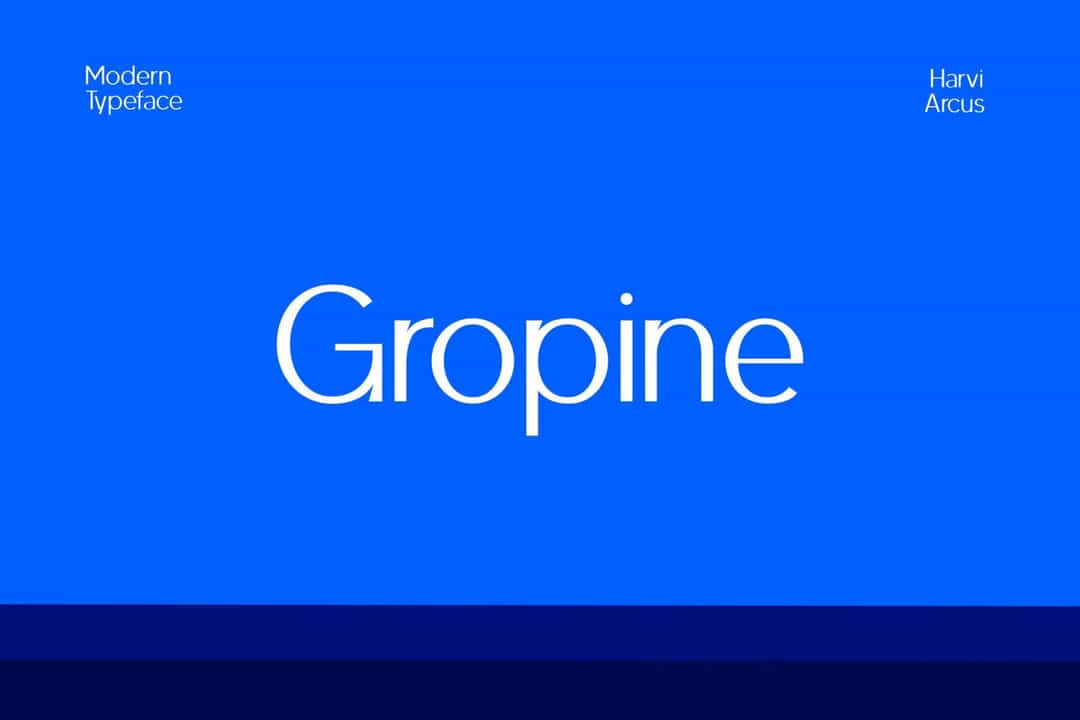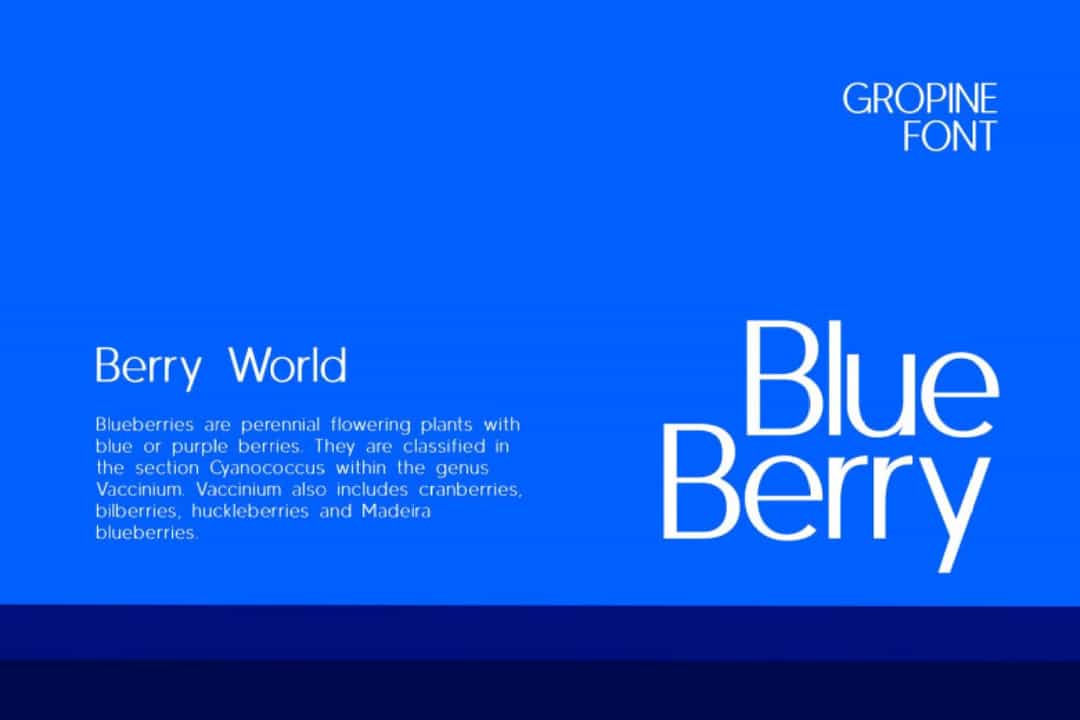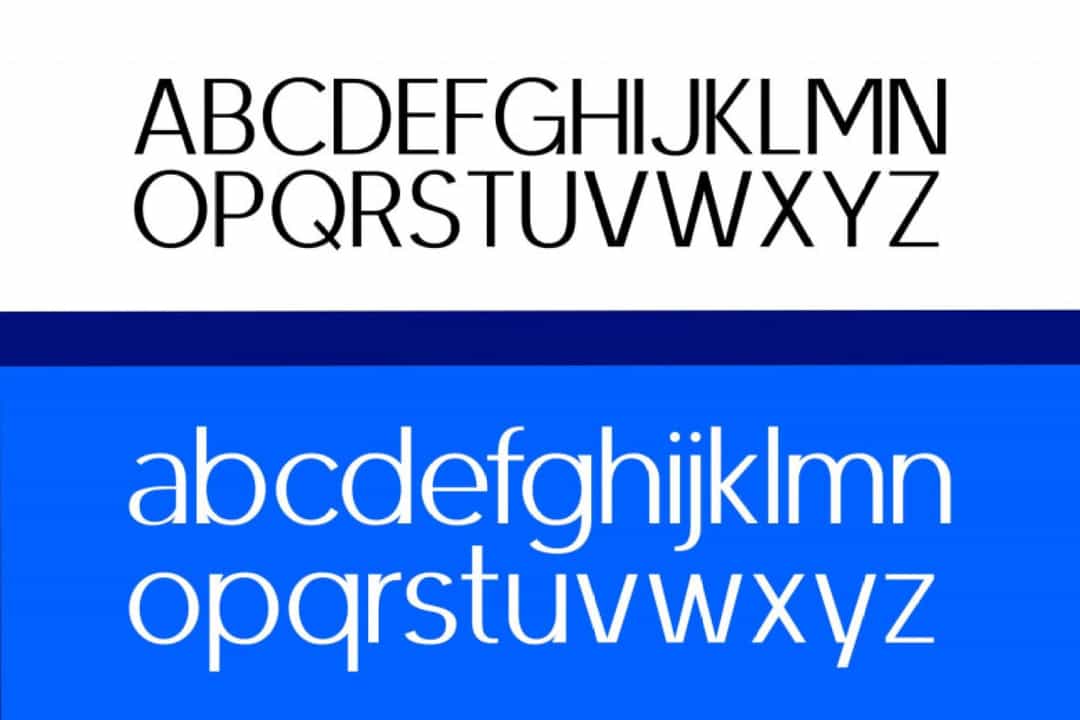
Gropine is a sophisticated yet minimalist sans serif font. This font fits beautifully into all sorts of designs, so why not incorporate it in your creative plans and see how it stands out!